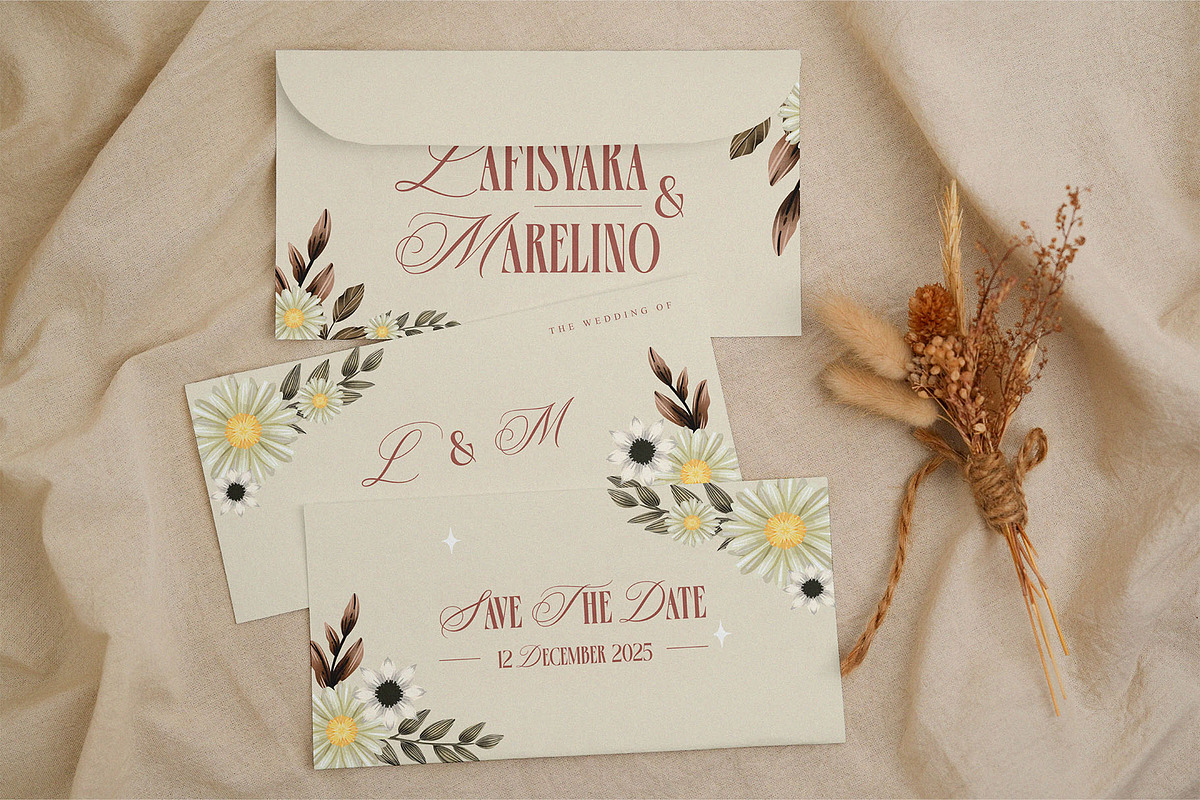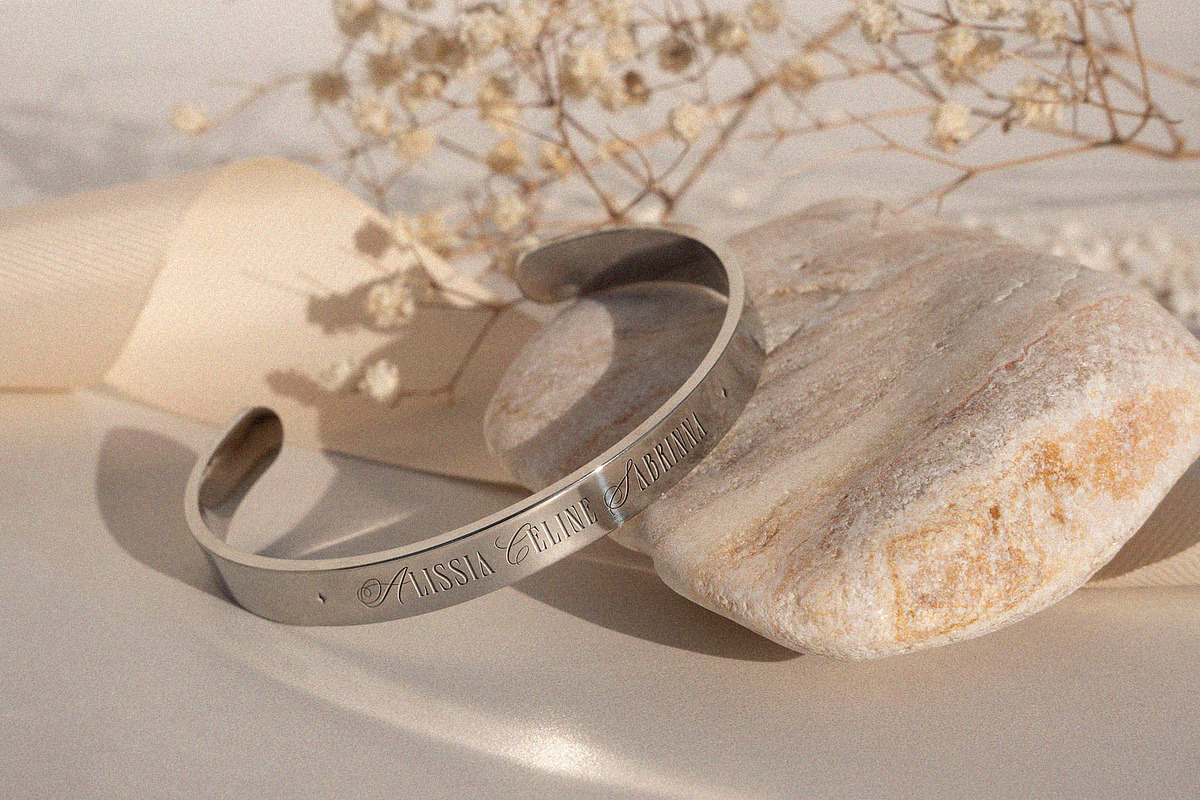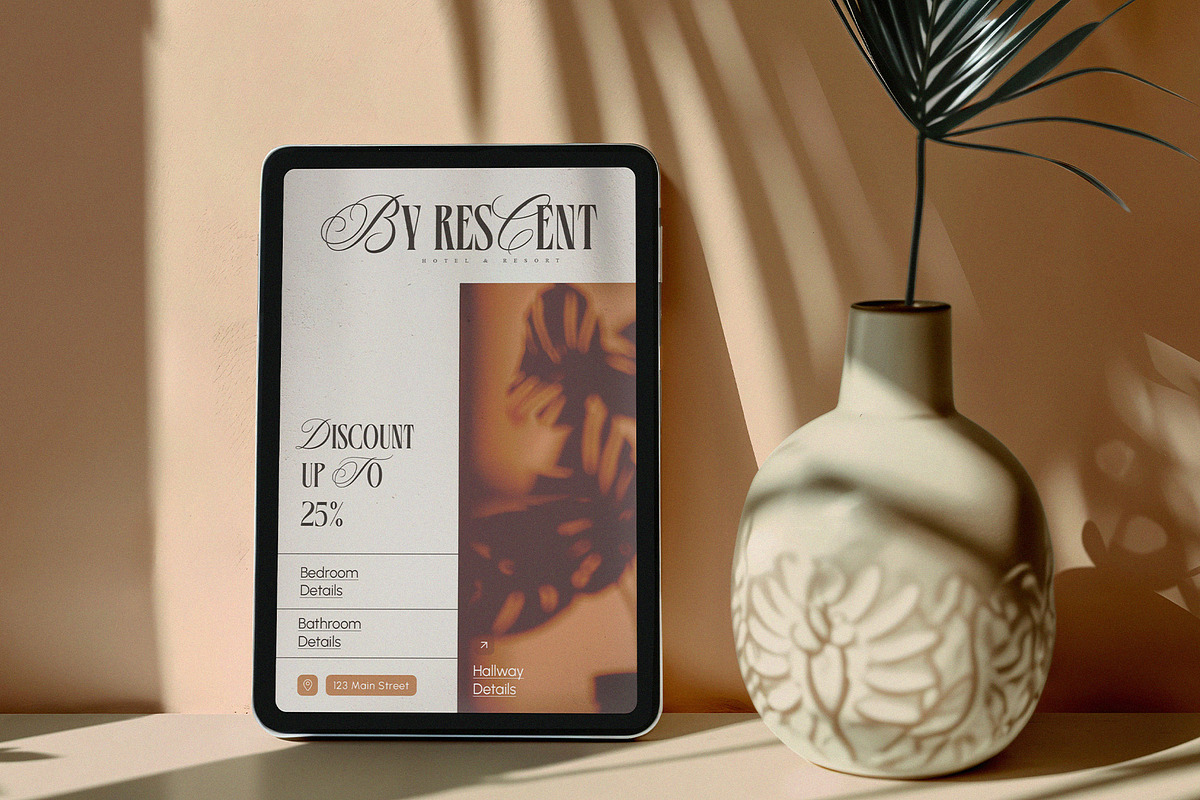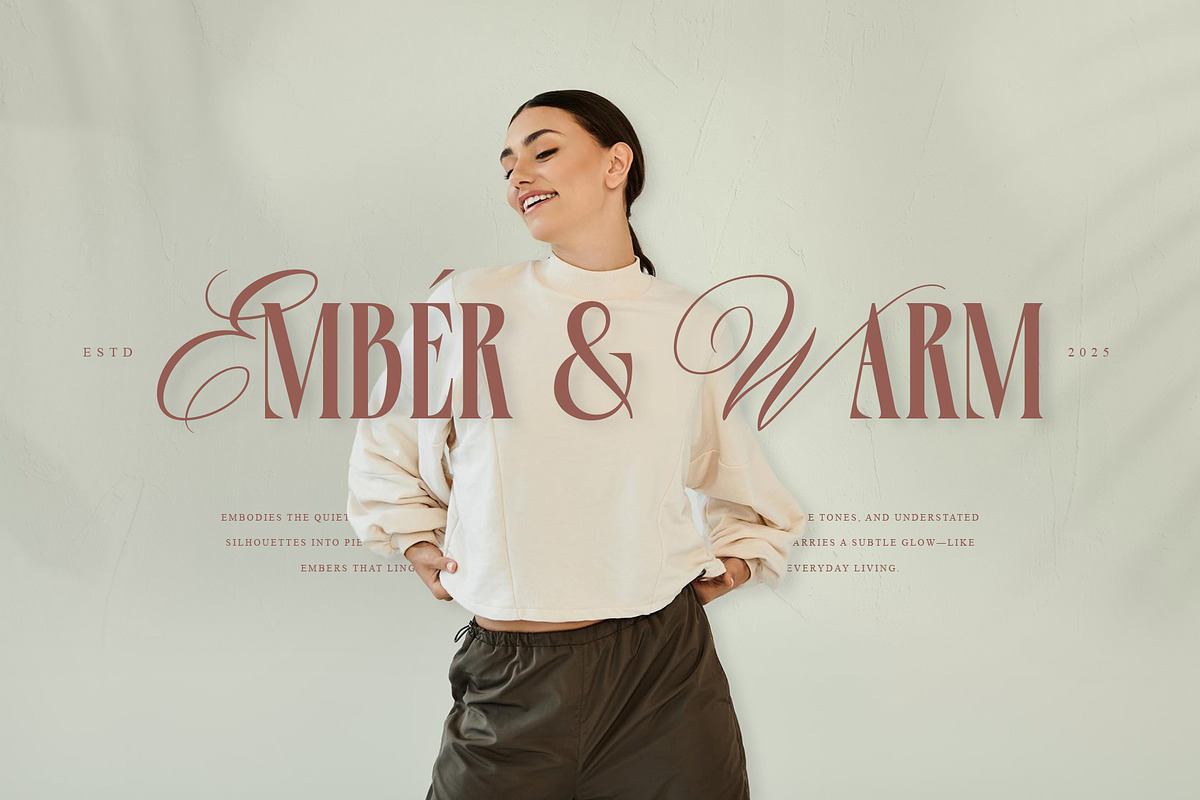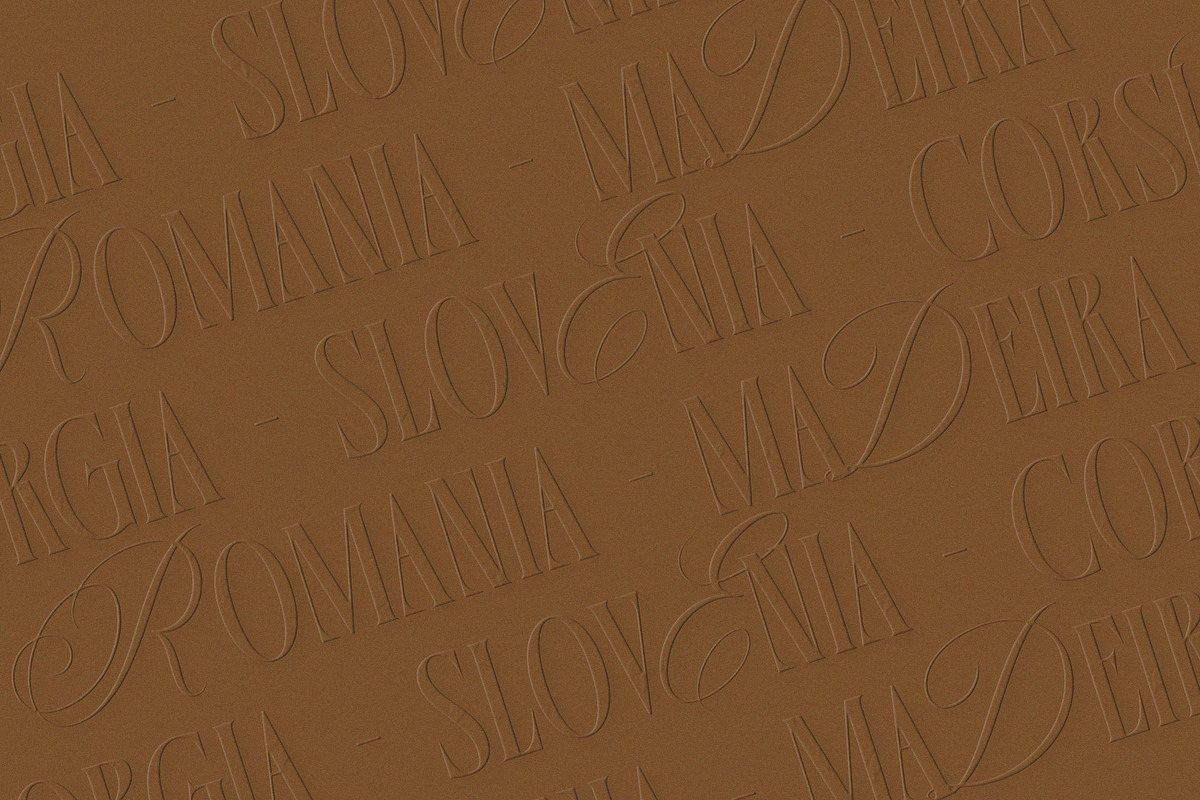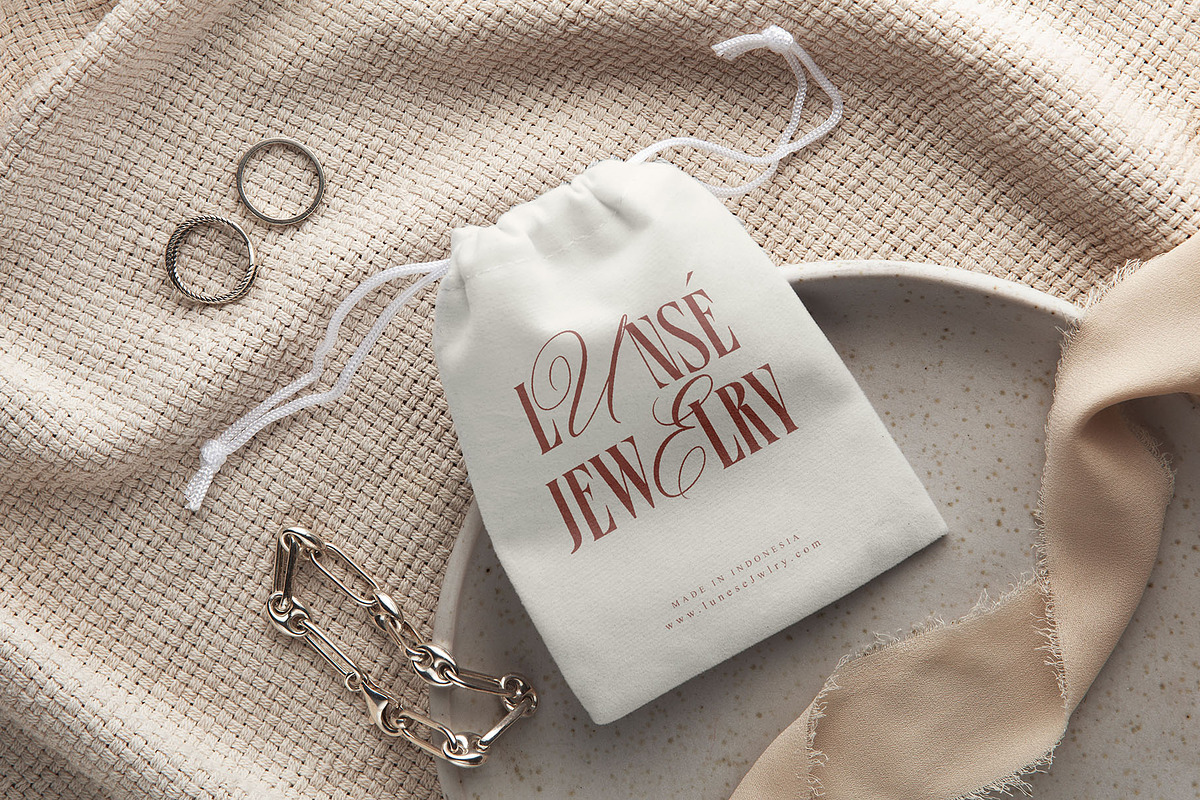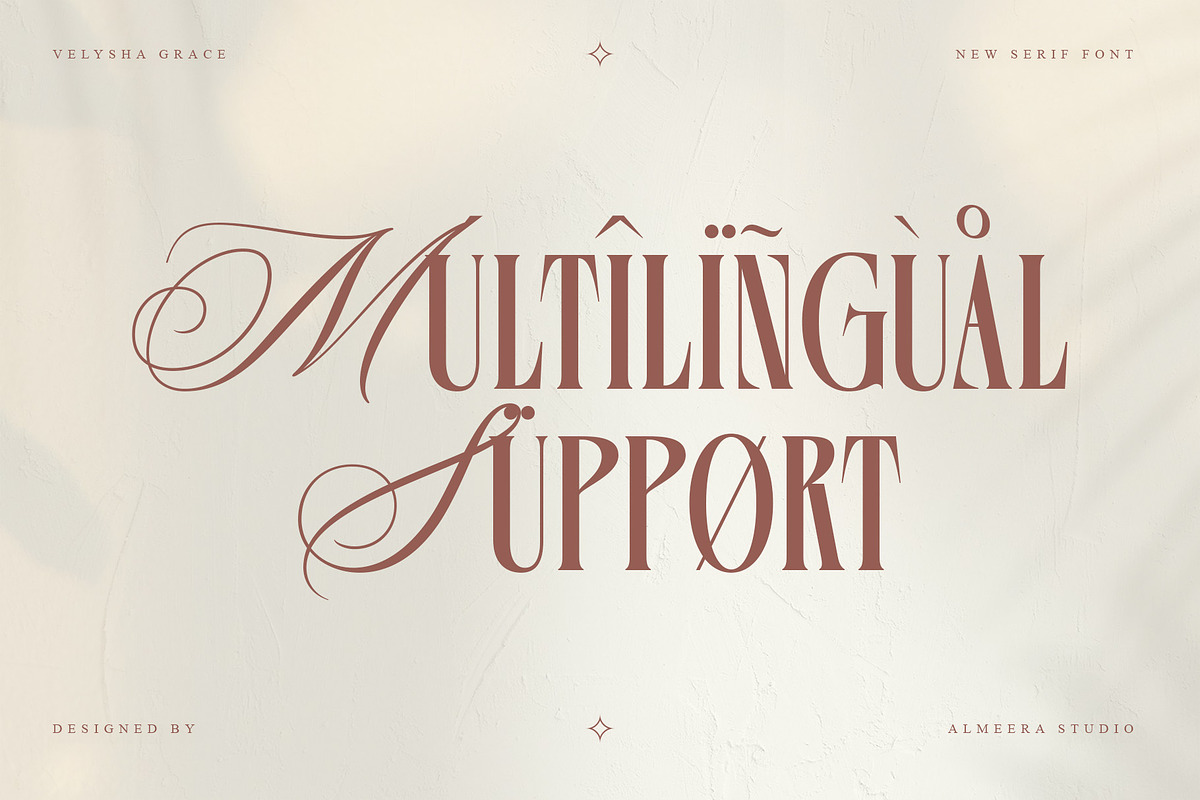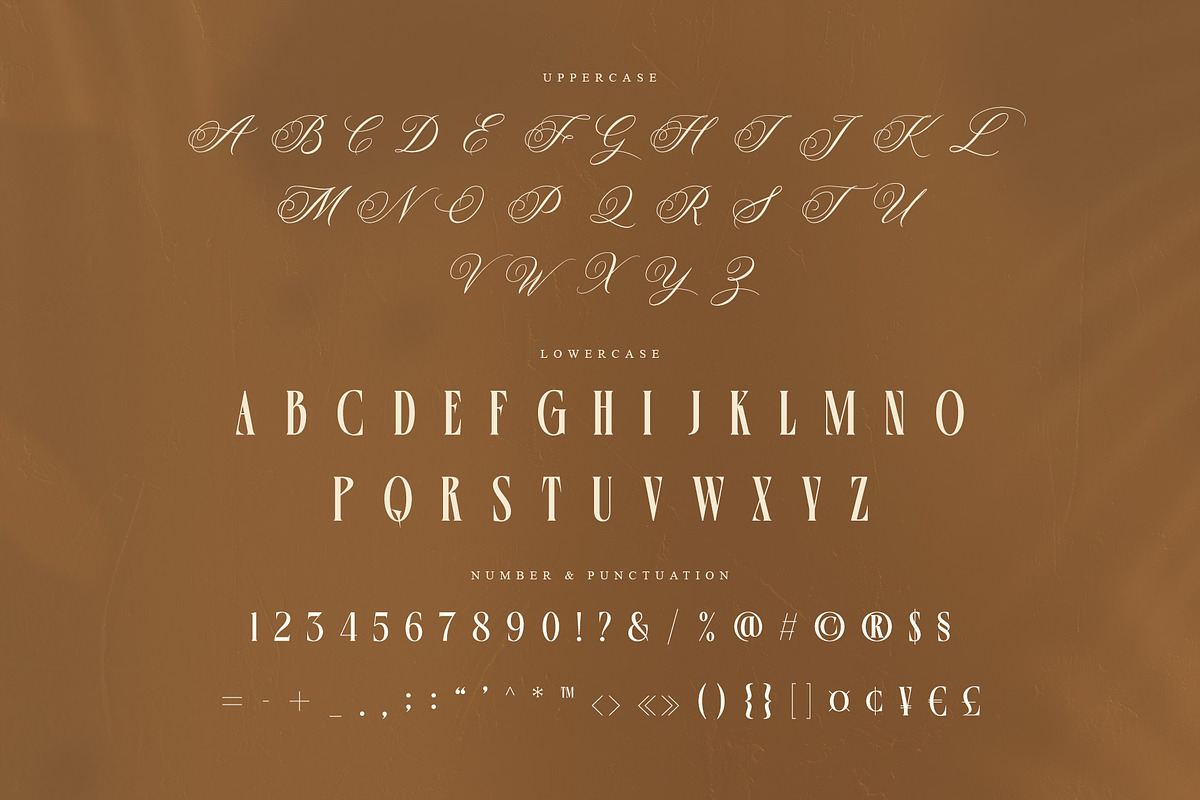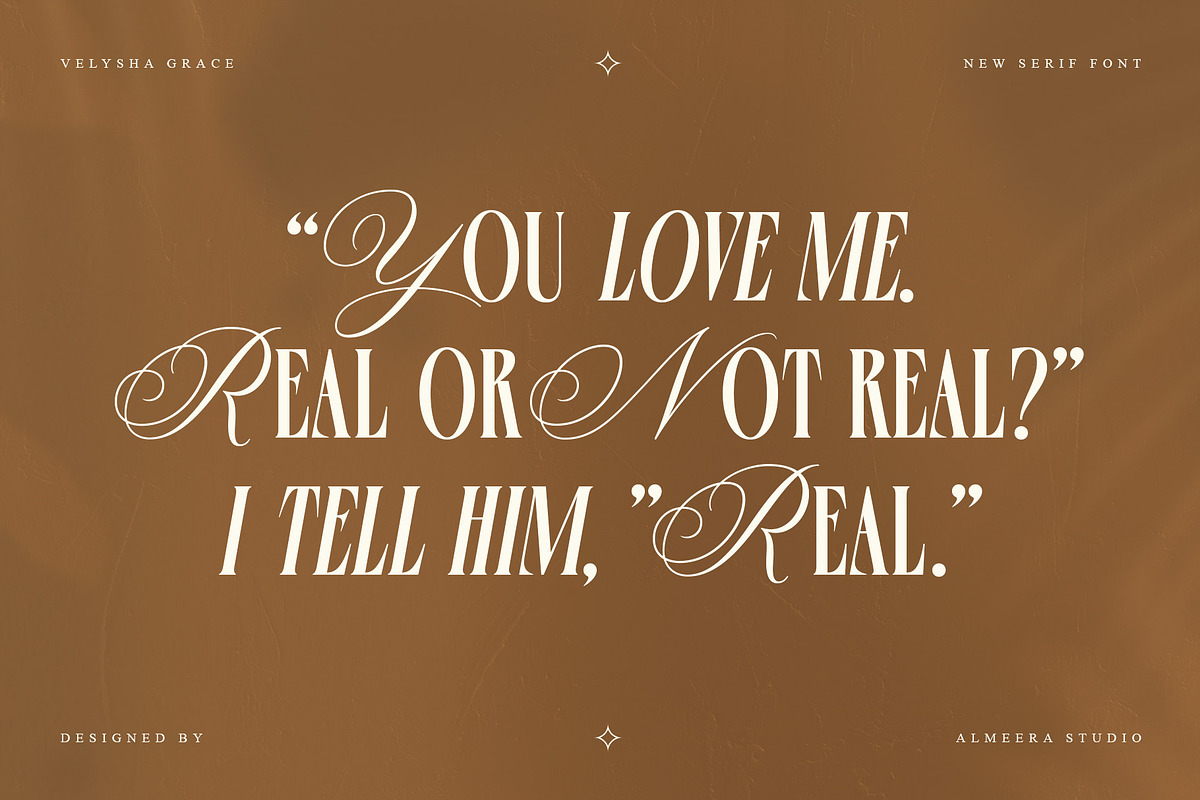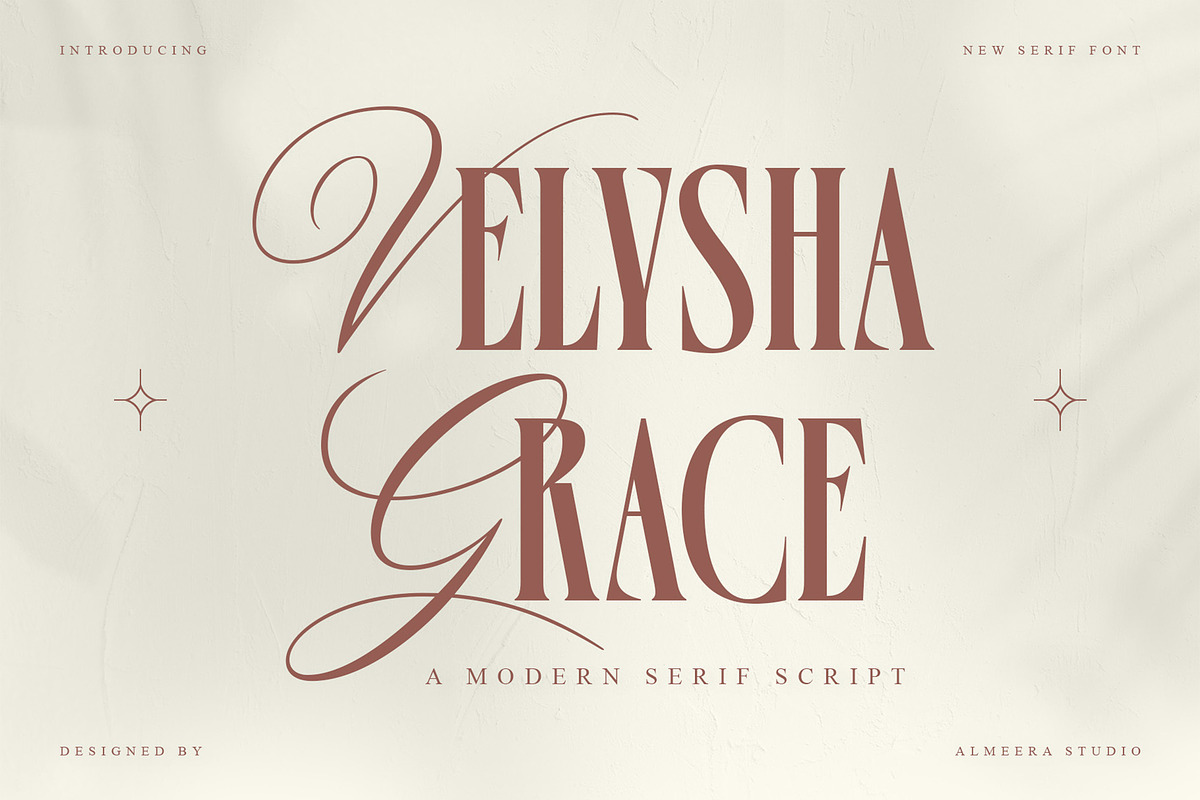
Velysha Grace – Hybrid Serif Script
Velysha Grace is a Modern Serif Script featuring tall silhouettes, elegant strokes, and long flowing flourishes that bring a high-end, graceful character to your designs. It’s crafted to elevate modern editorial layouts, luxury branding, beauty packaging, fashion logos, wedding concepts, and feminine visual identities. Velysha Grace blends strong structure with soft elegance—creating a contemporary serif script that feels poetic, stylish, and beautifully refined.
- Numbers, fractions
- Punctuation and symbols